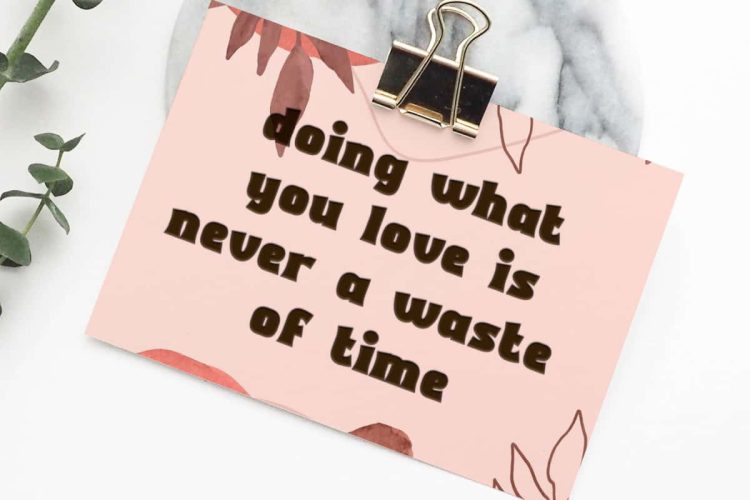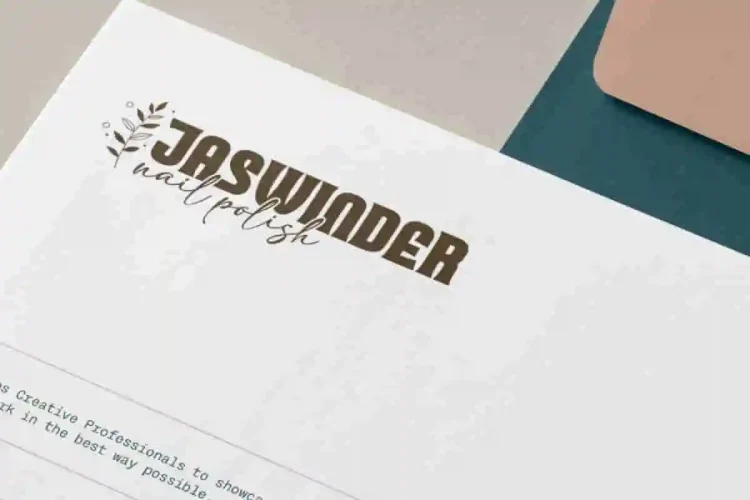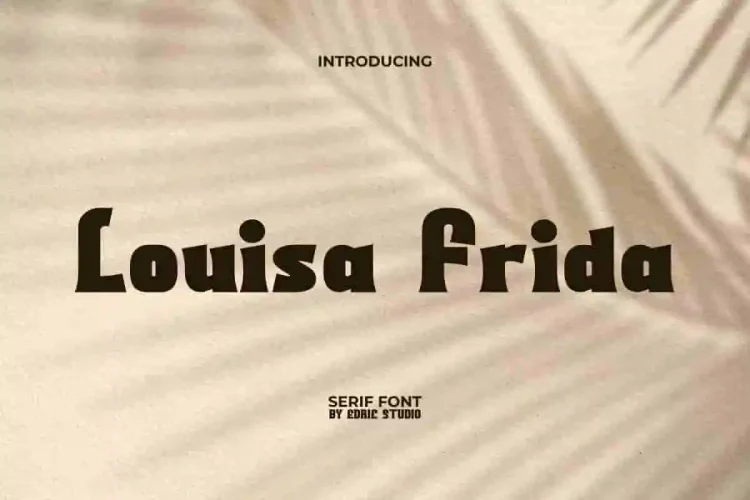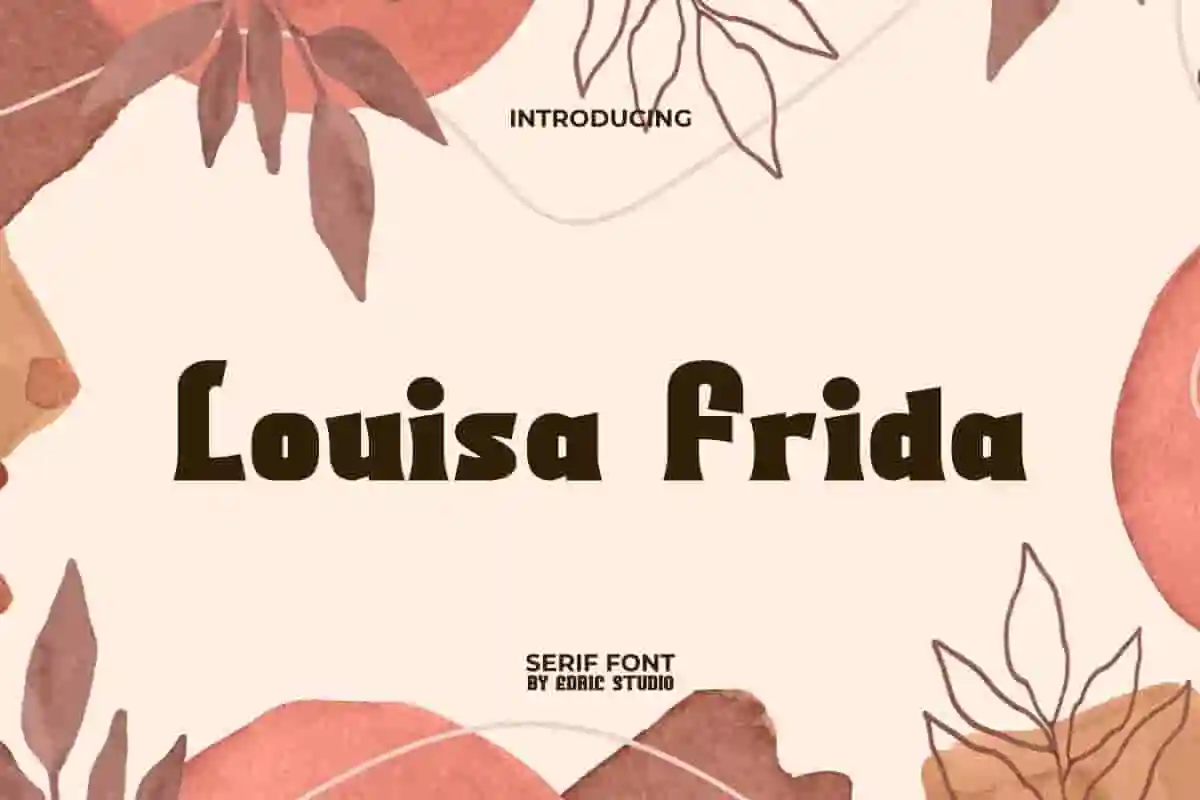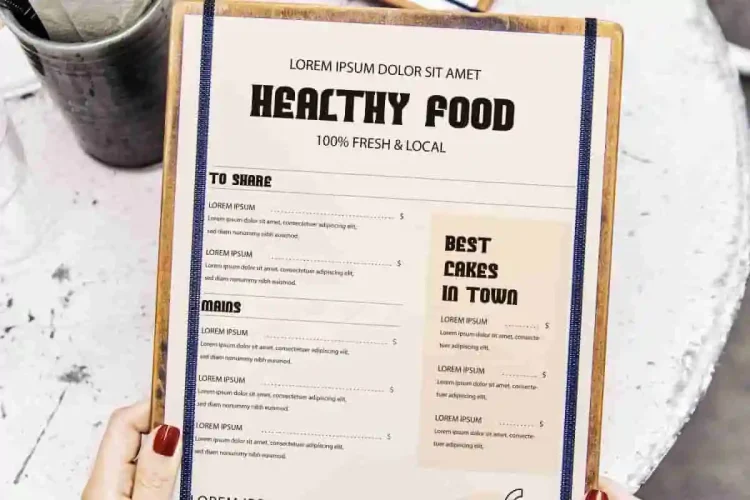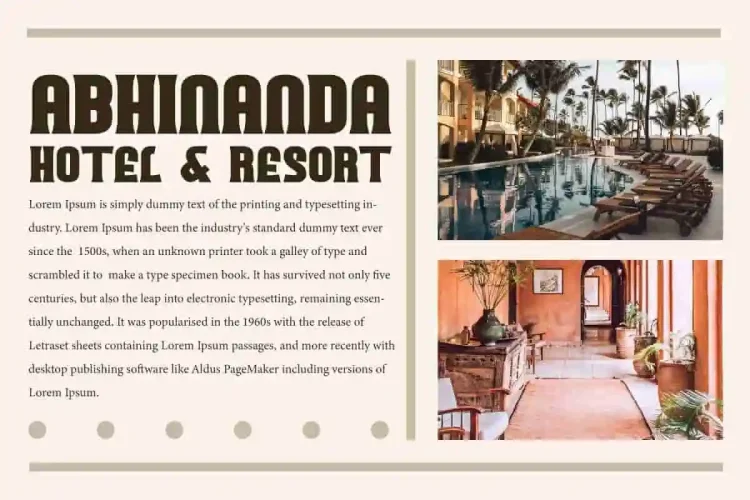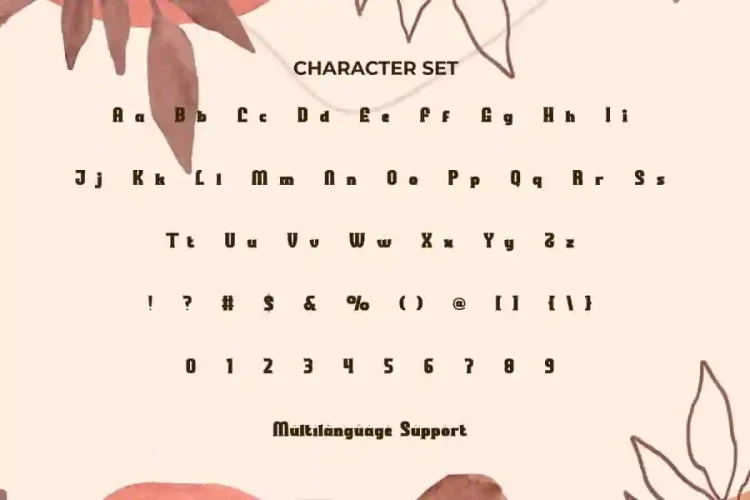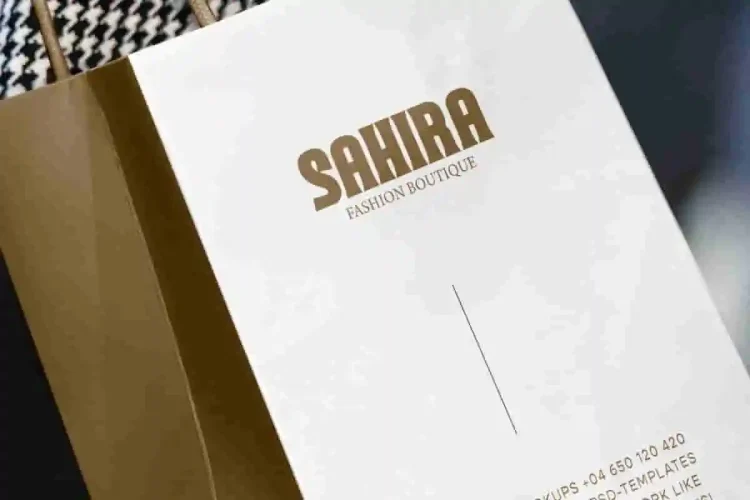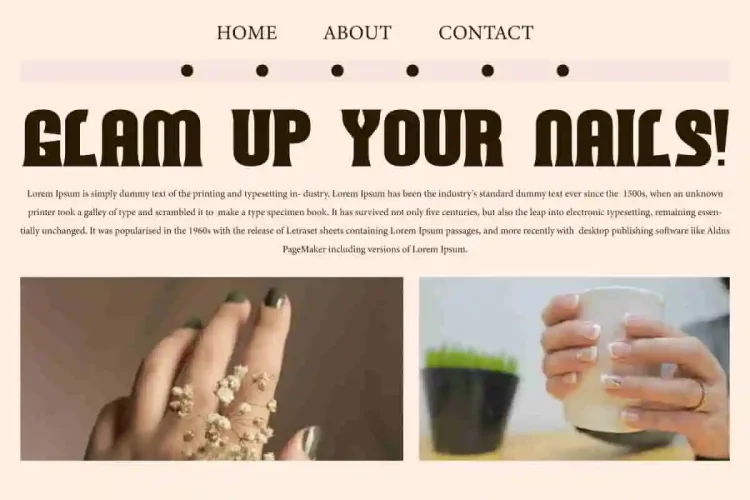
Louisa Frida Retro Font
Louisa Frida Font is a beautiful bold serif display font with a retro style. It has almost rounded edges on some letters which makes it unique. Add this font to your various creative designs, such as banners, blogs, business card, cover, flyer, headers, headline, label, logo, menu, mockup, packaging, poster, quotes, title, website, and more.
Louisa Frida Font comes with a complete set of Uppercase and Lowercase Letters, Number, Punctuation, and Symbols. With its handmade beauty that is dissolved in a sense of nostalgia, packaged more trendy, it will make any of your designs more charming and beautiful. Perfect for advertising, boutique, café, fashion, hotel, nail salon, printing, resort, restaurant, web designer, etc.